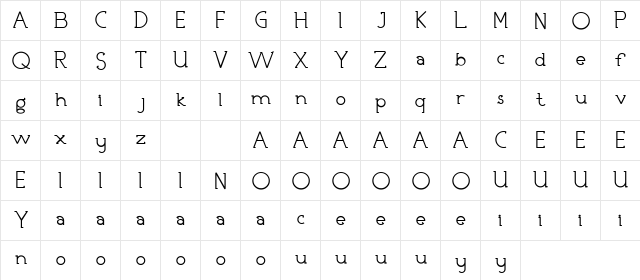
NICOLLS DEMO Medium
| Foundry | edric studio |
| Designer | M Deyan |
Design Context for NICOLLS DEMO Typeface
NICOLLS DEMO takes a measured approach to typography — its balanced proportions and neutral character make it a reliable workhorse for both digital and print work.